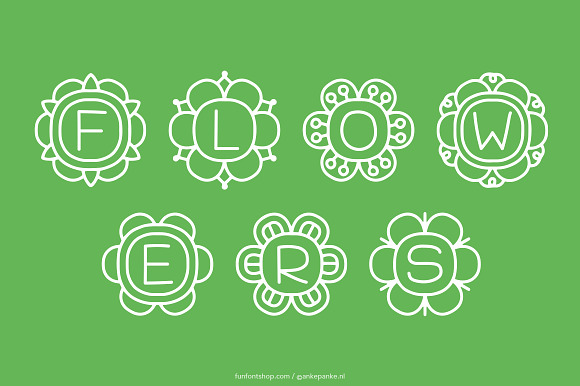
Flowers Font
Flowers Font by funfontshop is a font selected for branding, posters, packaging, typography.
Why Flowers Font is worth a look
Flowers Font by funfontshop fits naturally into Branding, posters, packaging, typography.